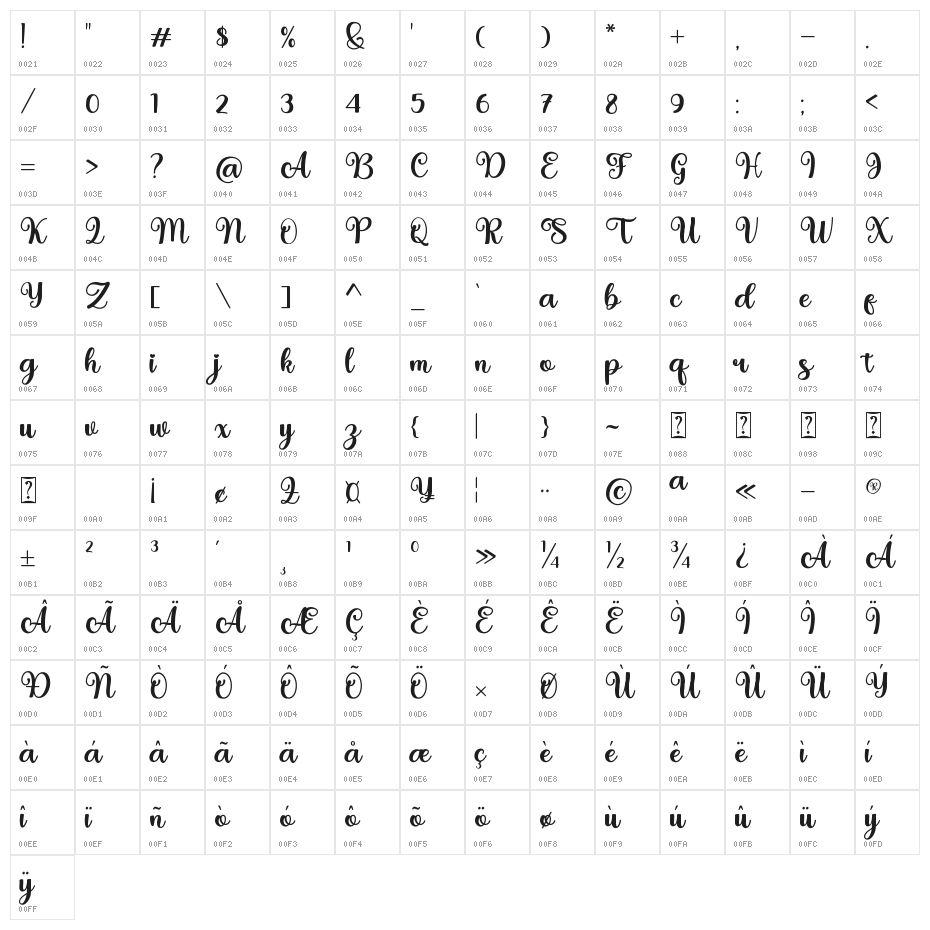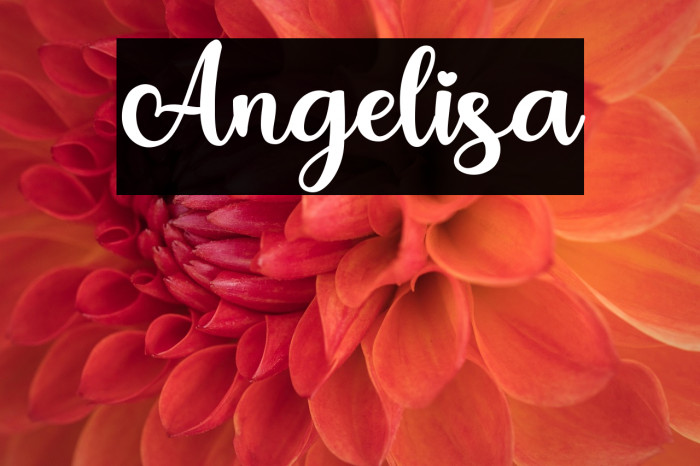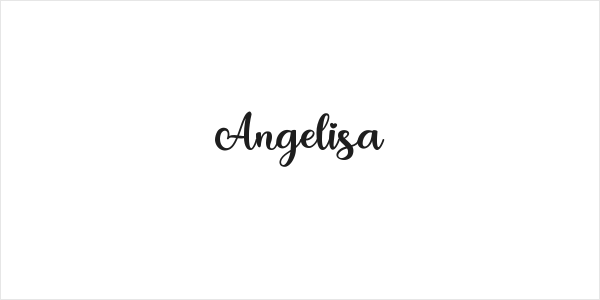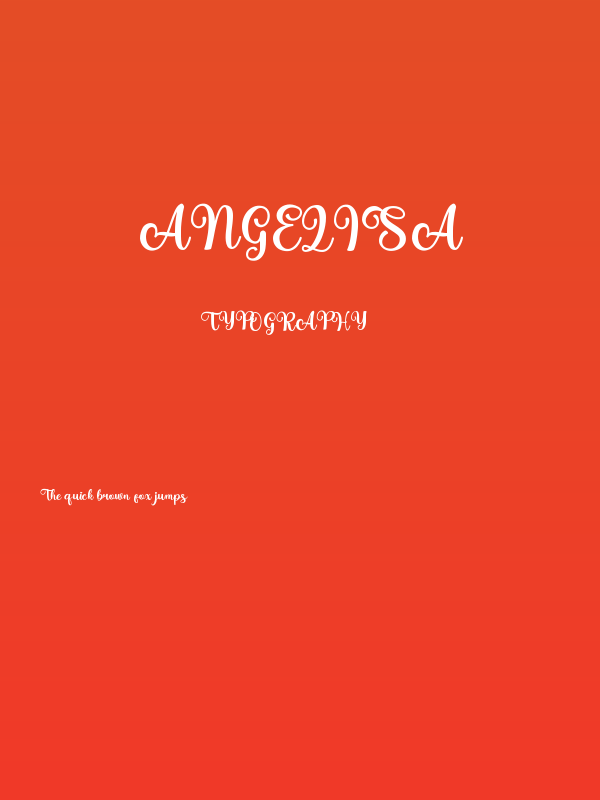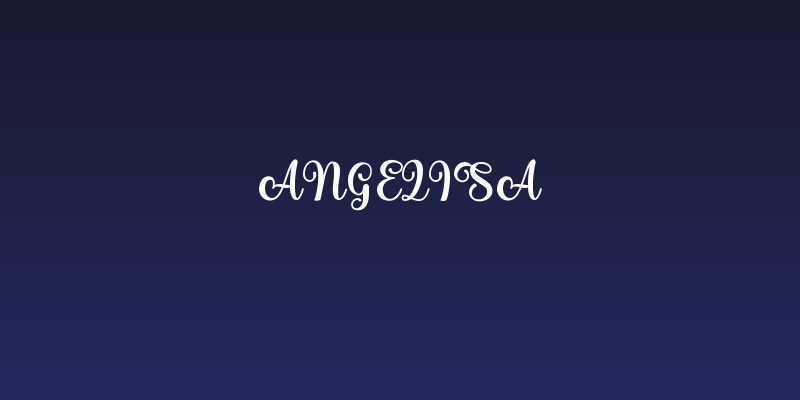
Angelisa Font
Angelisa Description
This font features a playful and elegant script style with a flowing, cursive design. The uppercase letters exhibit a graceful loop and swirl, adding a touch of sophistication. The lowercase letters maintain a consistent flow, with some characters featuring unique flourishes that enhance its decorative appeal. The numbers are bold and clear, ensuring readability while maintaining the overall aesthetic. Special characters are creatively integrated, complementing the font's artistic nature. This font is ideal for projects that require a personal and stylish touch, such as invitations, branding, and decorative prints.
| Use Case | Logos, Invitations, Decorative Prints |
| Proposed Projects | Ideal for wedding invitations, branding, greeting cards, and decorative prints. |